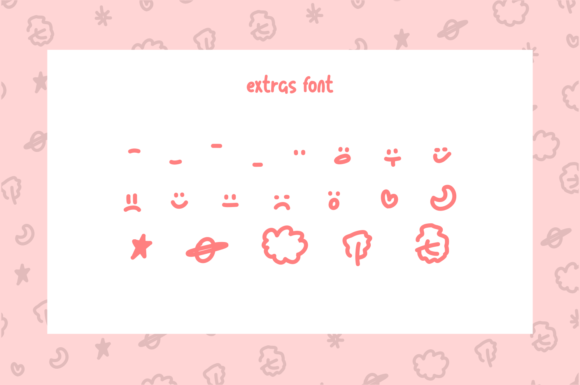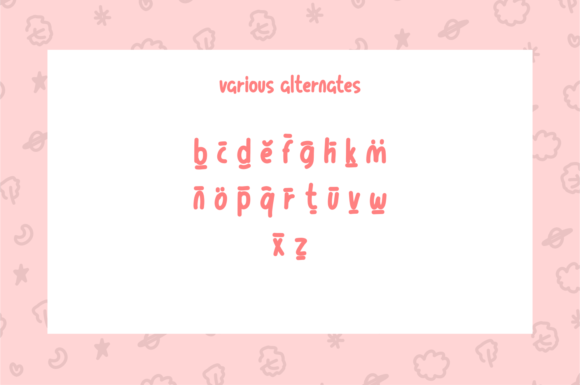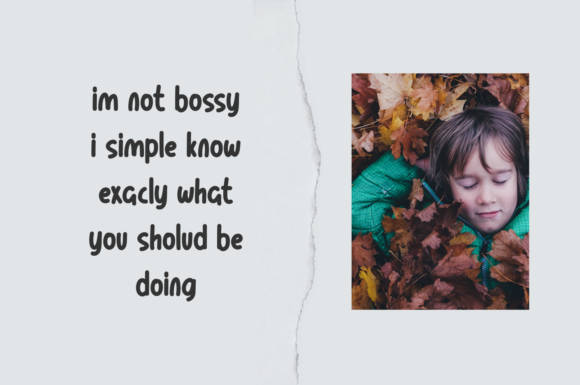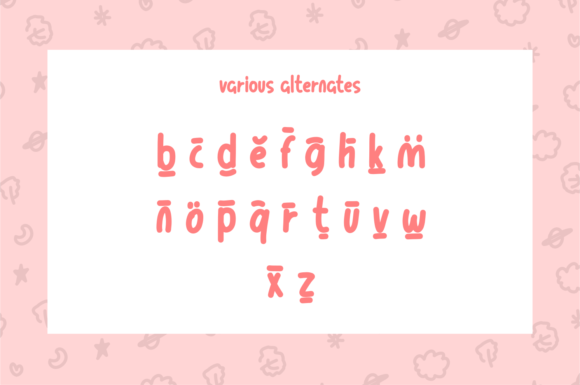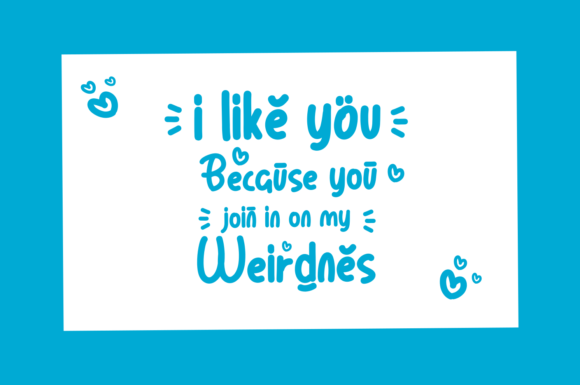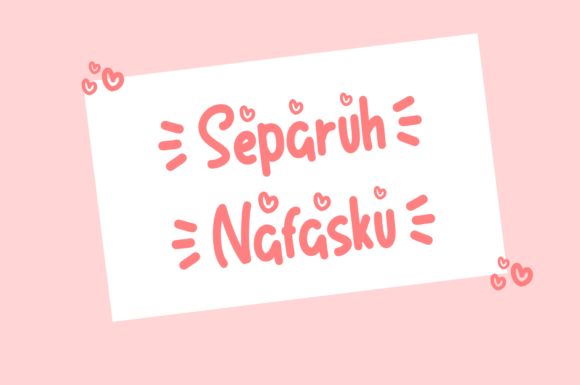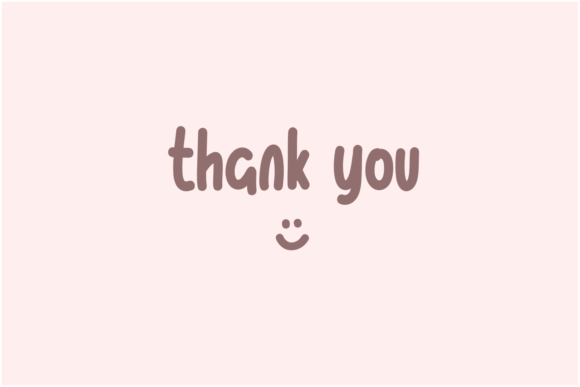
Sallerha Font
About Sallerha Font
“Sallerha” sounds like a delightful and bold handwritten font with a friendly and playful touch. With cute doodle elements, this font is perfect for adding a childlike playfulness to any kids’ and school projects.
By using “Sallerha” in your designs, you can create a fun and engaging atmosphere. Its handwritten style and doodle elements add a personal and whimsical touch, making your projects feel more approachable and enjoyable for young audiences.
This font’s bold and friendly nature makes it perfect for various kids’ and school-related design themes. Whether you’re working on educational materials, children’s books, posters, or any other project, “Sallerha” can effortlessly brighten up the visuals and create a sense of joy and excitement.
With “Sallerha,” you have the creative freedom to experiment with different font sizes, colors, and doodle elements to create visually captivating and adorable compositions.
The childlike playfulness of “Sallerha” makes it a great choice for headlines, titles, or any other text element that needs to stand out and make a cheerful statement.
Incorporate “Sallerha” into your designs, and you’ll see how it brings a touch of joy and creativity, turning your kids’ and school projects into bright and delightful works of art.
While embracing the childlike playfulness of “Sallerha,” remember to maintain readability and legibility, especially if using it for educational materials. Proper spacing and alignment between letters ensure that the text remains clear and easy to read, preserving the font’s overall friendly and fun vibe.
In conclusion, “Sallerha” is a bold and friendly handwritten font with cute doodle elements that can brighten up any kids’ and school projects. Embrace its childlike playfulness, and let it be the font that adds a touch of joy and creativity to your designs, making them enjoyable and captivating for young audiences. With “Sallerha,” your kids’ and school-related projects will come to life with a sense of fun and excitement, leaving a lasting impression on young hearts and minds.